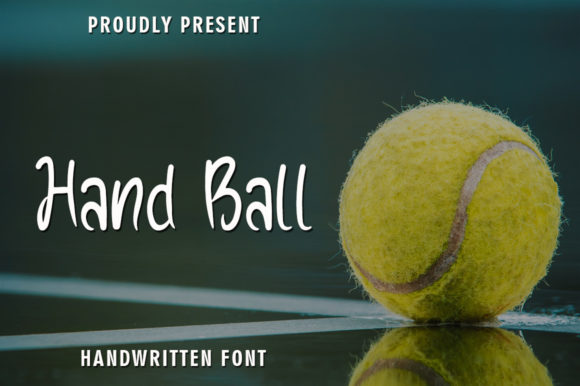
Journey into the Realm of Handwritten Charm with Hand Ball Font – A Stroke of Brilliance for Your Design Endeavors
In the vast world of typography, Hand Ball Font emerges as a beacon of elegance, simplicity, and versatility. Crafted with meticulous care, this script font embodies the intrinsic beauty of handwritten strokes, inviting you to infuse your creative projects with a touch of heartfelt authenticity.
As you delve into the intricacies of Hand Ball Font, you'll discover a myriad of possibilities that await your exploration. Its charming and playful characters lend themselves seamlessly to a wide spectrum of design concepts, from whimsical invitations and heartfelt greeting cards to captivating social media posts and eye-catching branding materials.
Whether you seek to evoke nostalgia with vintage-inspired designs or inject a spark of whimsy into contemporary creations, Hand Ball Font stands ready as your trusty companion. Its versatility knows no bounds, accommodating both delicate and bold expressions, allowing your imagination to run wild and your designs to flourish.
Unleash the Power of Hand Ball Font and Witness Your Designs Take Flight
Immerse yourself in the captivating allure of Hand Ball Font and experience the transformative power it holds. Its intricate strokes and flowing lines will breathe life into your designs, captivating your audience with their undeniable charm.
Let Hand Ball Font become your secret weapon in the pursuit of design excellence. Its ability to effortlessly elevate even the most mundane projects into captivating masterpieces will leave you in awe.
So, embark on this creative odyssey with Hand Ball Font as your guide. Allow its enchanting presence to elevate your designs to new heights of beauty and captivation. Embrace the boundless possibilities that await and witness the remarkable transformation that unfolds before your very eyes.